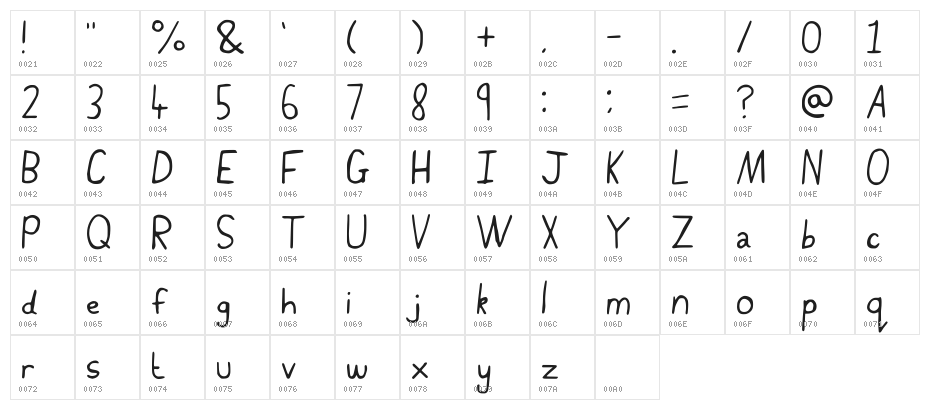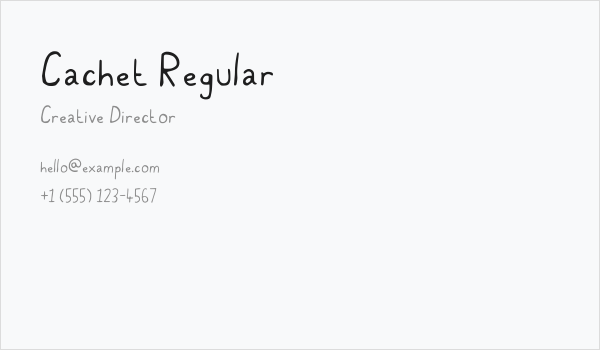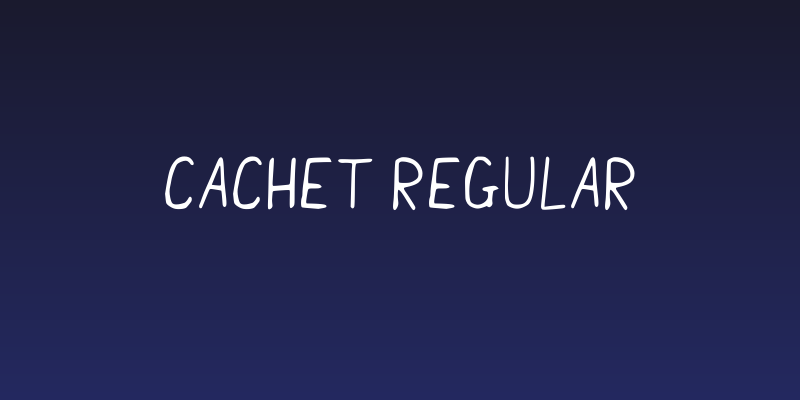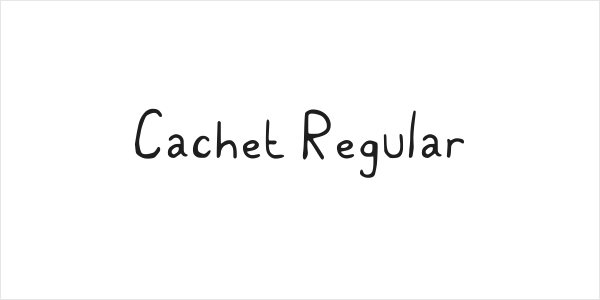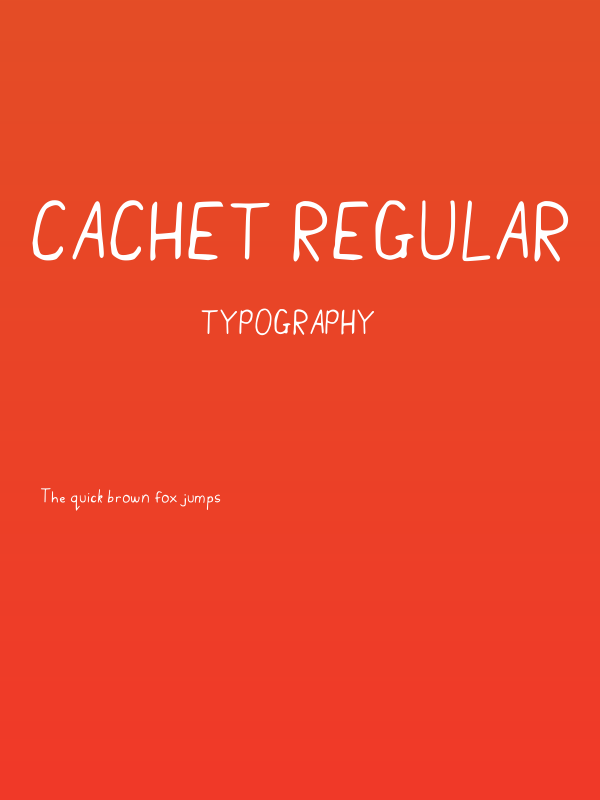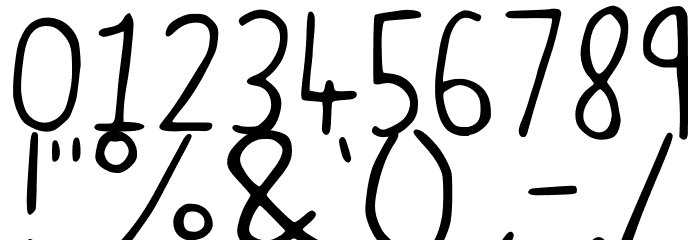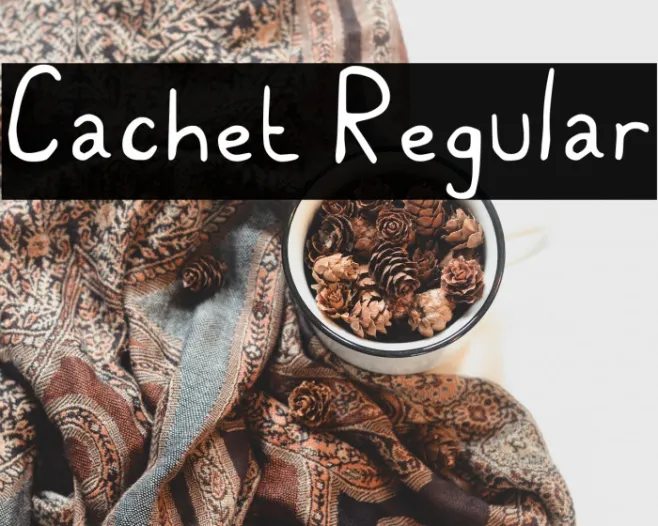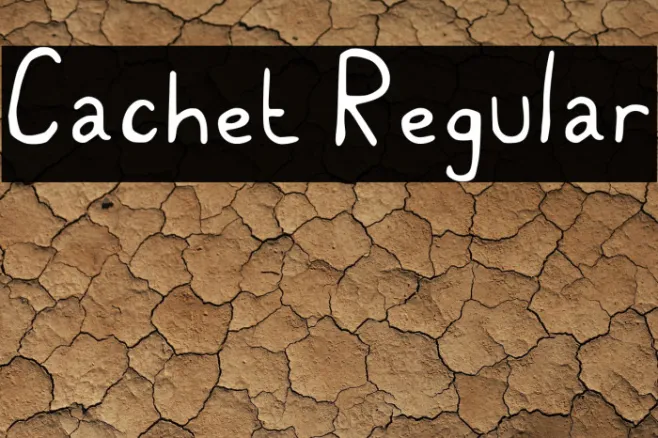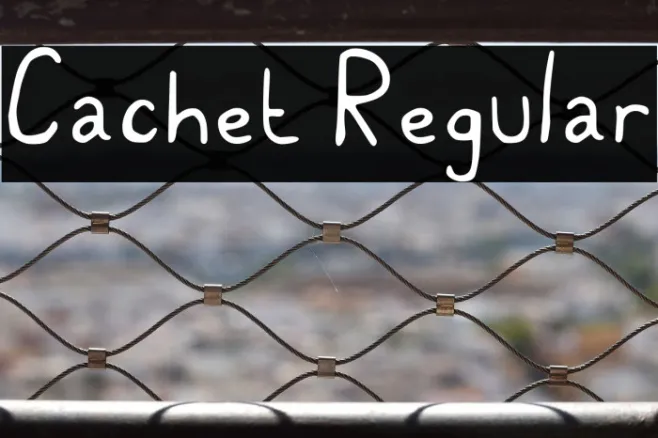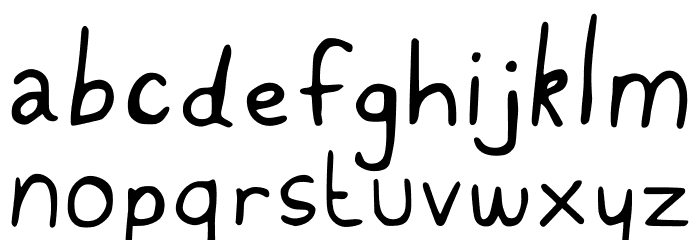
Cachet Regular Font
Cachet Regular Description
This font exhibits a playful and casual handwritten style, characterized by its irregular and organic strokes. The letters have a slightly uneven baseline, adding to the informal and approachable feel. The uppercase and lowercase letters maintain a consistent style, with rounded edges and a natural flow. The numerals and special characters complement the letterforms, maintaining the same casual aesthetic. This font is ideal for projects that require a personal touch or a relaxed vibe.
| Proposed Projects | Greeting cards, children's books, personal blogs, casual branding, and social media graphics. |